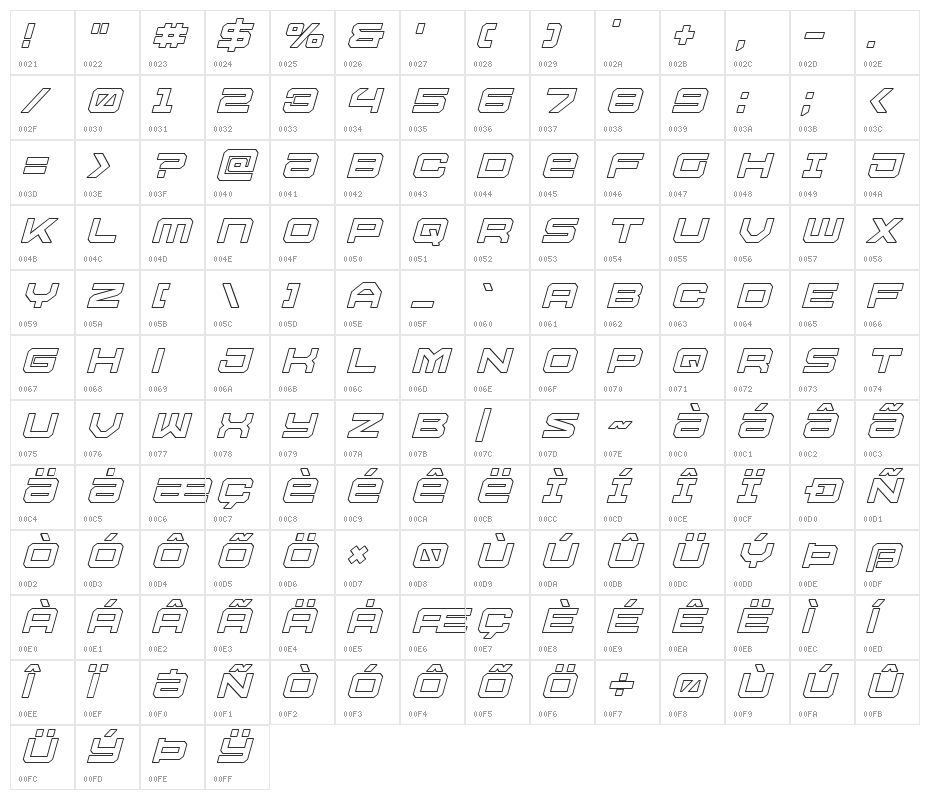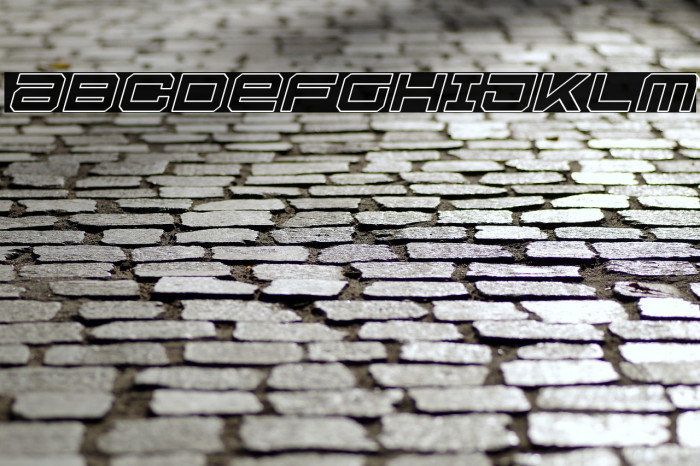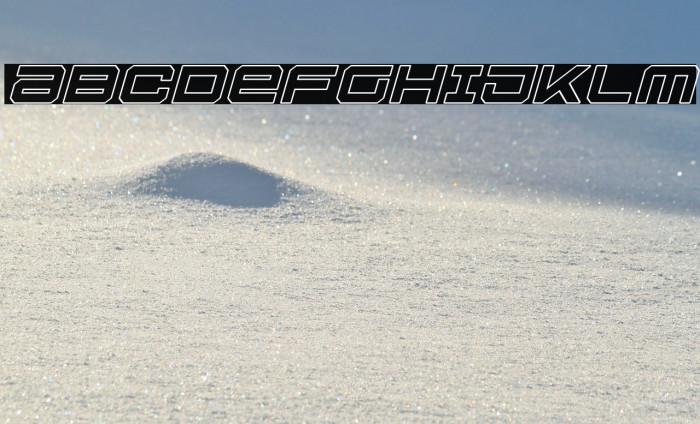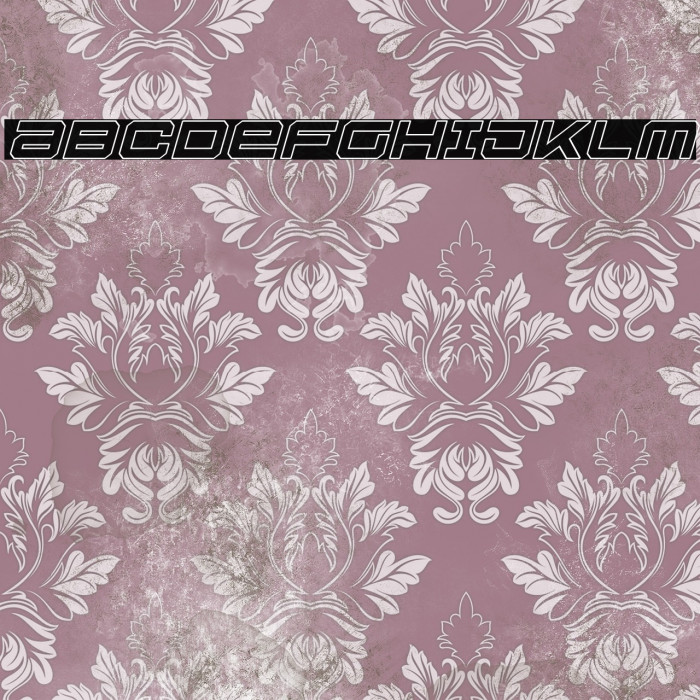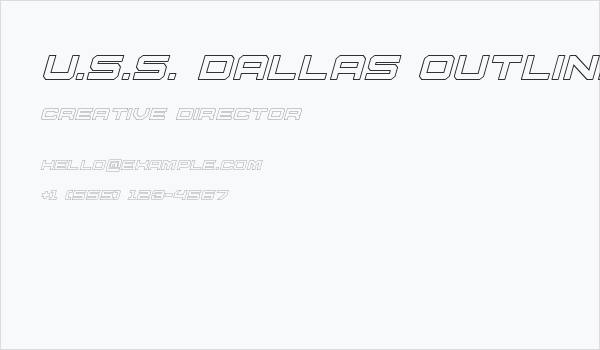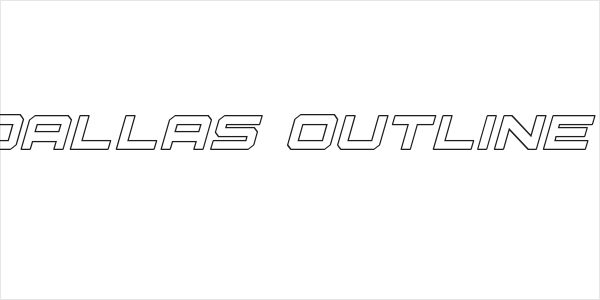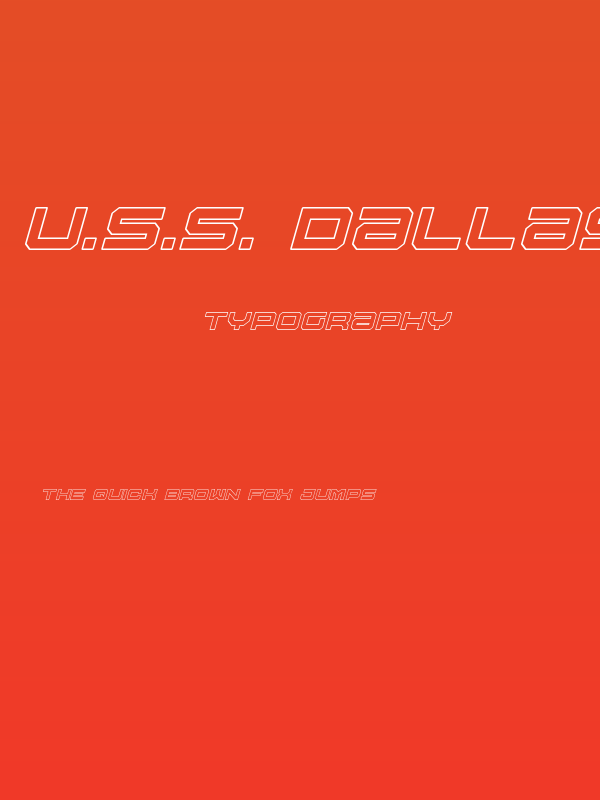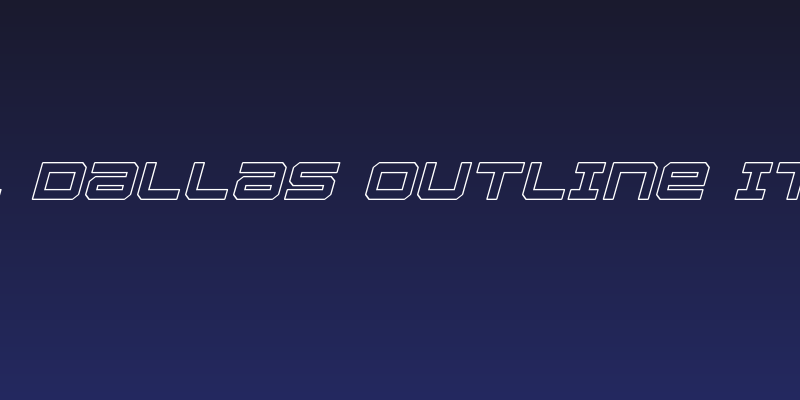
U.S.S. Dallas Outline Italic Font
U.S.S. Dallas Outline Italic Description
This font features a futuristic and technical design with an outline style that gives it a distinctive, modern appearance. The characters are italicized, adding a dynamic and forward-leaning aspect to the text. Each letter is crafted with precision, showcasing angular and geometric shapes that contribute to its high-tech aesthetic. The uppercase and lowercase letters maintain a consistent style, while the numerals and special characters complement the overall design. This font's outline nature makes it suitable for creating striking visual effects, especially in digital and print media where a bold statement is desired.
| Use Case | Headlines, Logos, Digital interfaces |
| Proposed Projects | Ideal for technology branding, sci-fi themed projects, video game titles, and digital interfaces. |